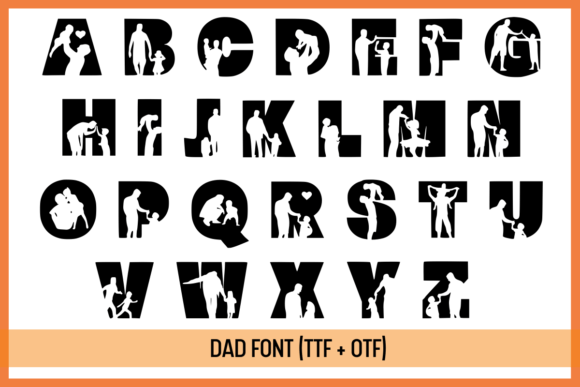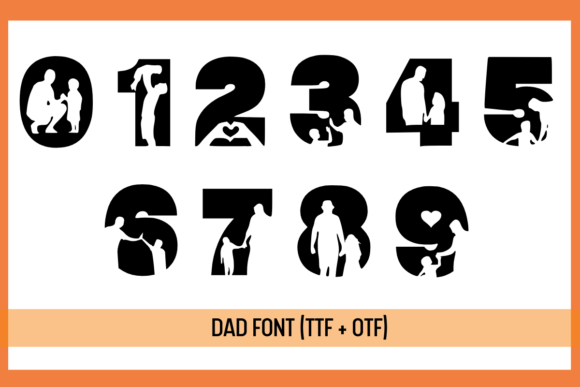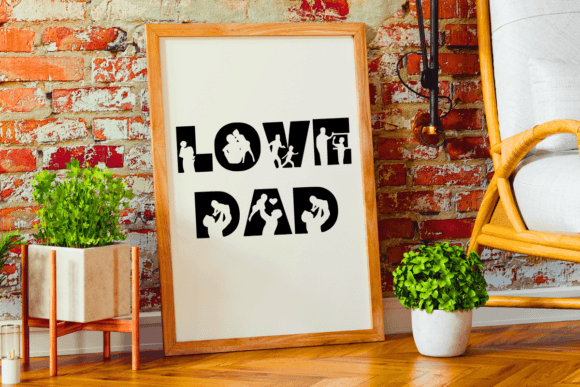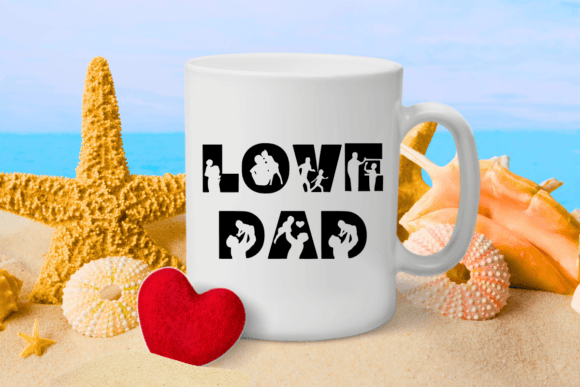
Dad Font: The Ultimate Decorative Font for Creative Projects
Dad Font is an incredibly unique decorative font that has been masterfully designed to become a true favorite among designers and crafters. With its distinctive style and versatility, this font has the potential to bring each of your creative ideas to the highest level. In this article, we’ll explore the features and benefits of Dad Font, and how it can elevate your designs and crafts to new heights.
What Makes Dad Font So Special?
Dad Font is a one-of-a-kind decorative font that boasts a unique and eye-catching design. Its distinctive style is perfect for making a statement, adding a touch of personality to your projects, and setting them apart from the rest. Whether you’re working on a logo, branding materials, or crafting projects, Dad Font is sure to turn heads.
Key Features of Dad Font
- Unique Design: Dad Font features a distinctive and stylish design that’s unlike any other font out there.
- Highly Versatile: This font can be used for a wide range of projects, from logos and branding materials to crafting and DIY projects.
- Easily Readable: Despite its decorative nature, Dad Font is surprisingly easy to read, making it perfect for use in both digital and print materials.
- Scalable: Dad Font is designed to be scalable, ensuring that it looks great in any size or resolution.
Benefits of Using Dad Font
So why choose Dad Font for your next project? Here are just a few benefits of using this amazing decorative font:
- Adds Personality: Dad Font adds a touch of personality and whimsy to your projects, making them stand out from the crowd.
- Increases Engagement: The unique design of Dad Font is sure to grab attention and keep viewers engaged.
- Perfect for Branding: With its distinctive style, Dad Font is perfect for use in logos, branding materials, and other marketing collateral.
- Great for Crafting: Whether you’re working on a scrapbooking project, making DIY signs, or creating handmade cards, Dad Font is a great choice.
How to Use Dad Font in Your Projects
Using Dad Font in your projects is easy! Here are a few tips to get you started:
- Pair with Other Fonts: Dad Font pairs well with a variety of other fonts, so don’t be afraid to experiment with different combinations.
- Use in Headlines: The decorative nature of Dad Font makes it perfect for use in headlines and titles.
- Add to Logos and Branding: Use Dad Font to create unique and memorable logos and branding materials.
- Experiment with Colors: Dad Font looks great in a variety of colors, so don’t be afraid to experiment and find the perfect hue for your project.
Tips and Tricks for Working with Dad Font
Here are a few additional tips and tricks to keep in mind when working with Dad Font:
- Pay Attention to Kerning: As with any font, pay attention to kerning to ensure that your text looks professional and polished.
- Use in Digital and Print Materials: Dad Font is versatile enough to be used in both digital and print materials, so don’t be afraid to experiment with different applications.
- Experiment with Different Sizes: Dad Font looks great in a variety of sizes, so experiment to find the perfect size for your project.
Dad Font is an incredibly unique and versatile decorative font that’s perfect for designers and crafters looking to add a touch of personality to their projects. With its distinctive style, ease of use, and scalability, this font has the potential to bring each of your creative ideas to the highest level. Whether you’re working on a logo, branding materials, or crafting projects, Dad Font is sure to turn heads.